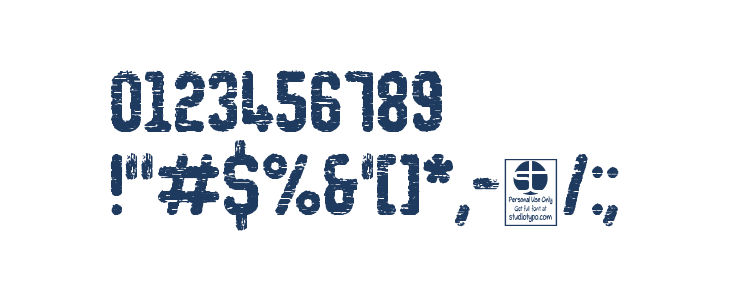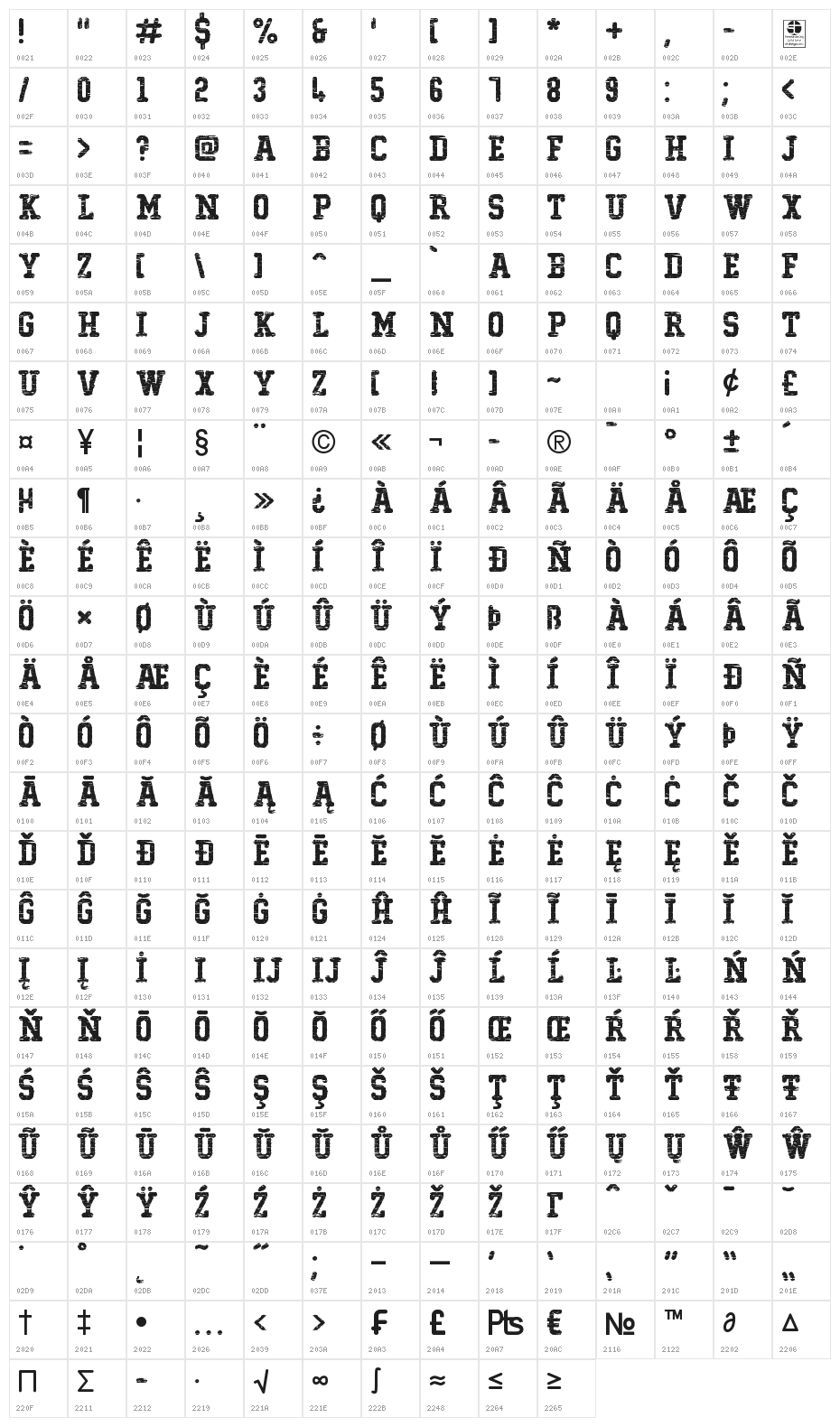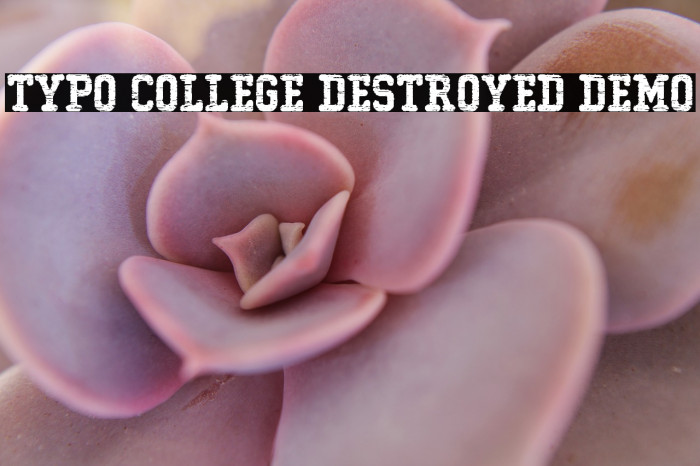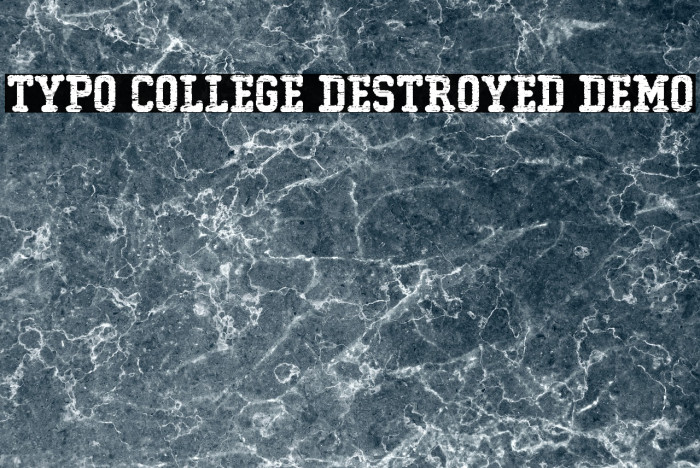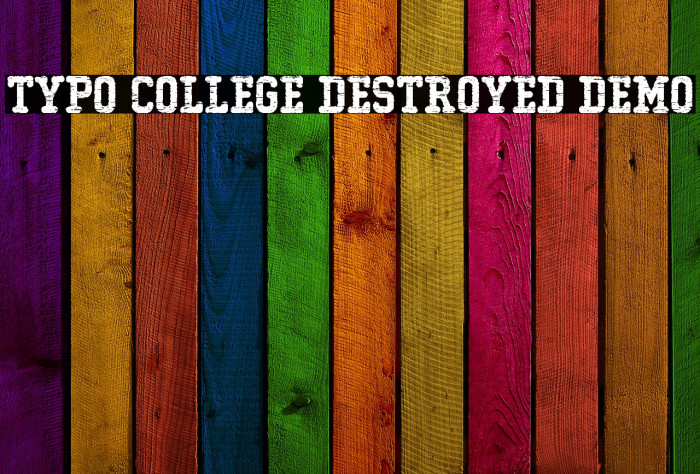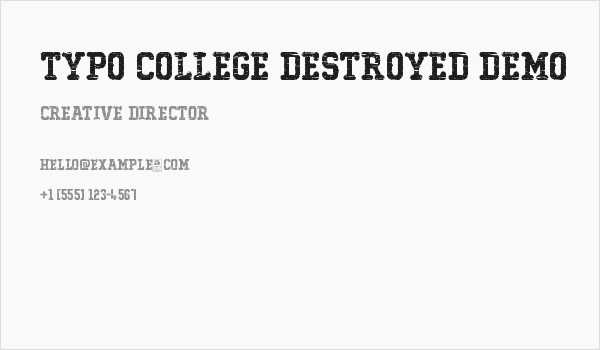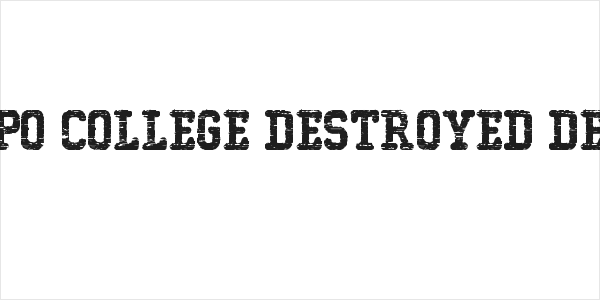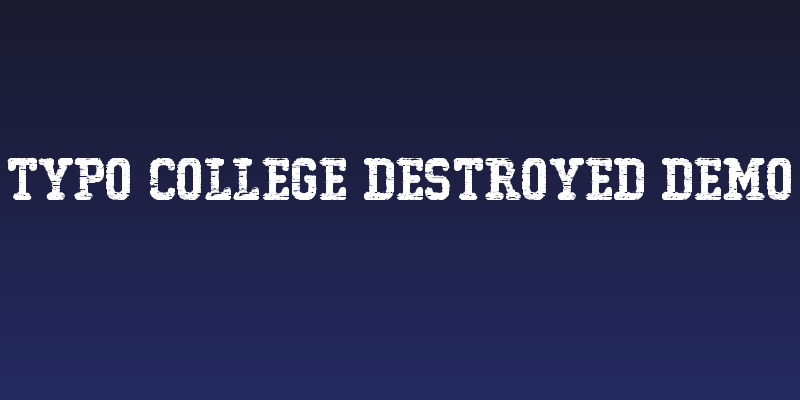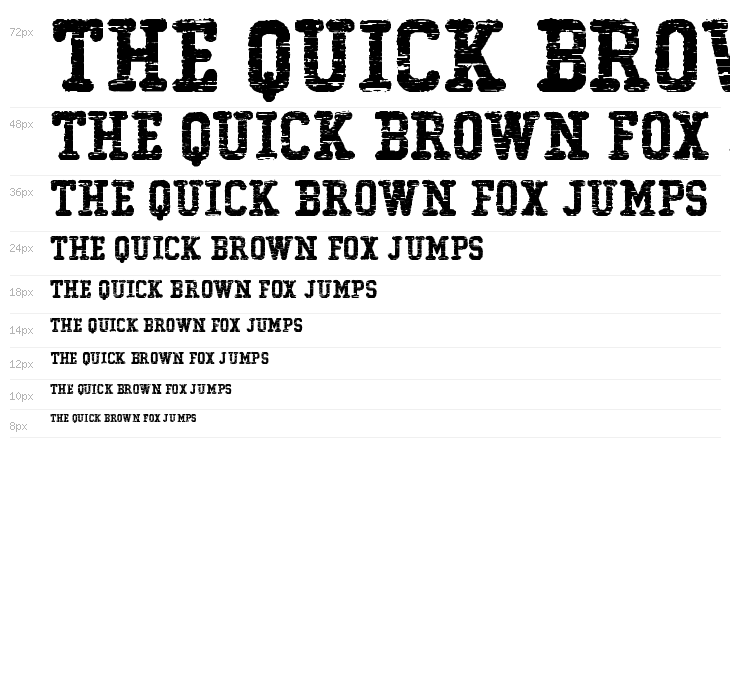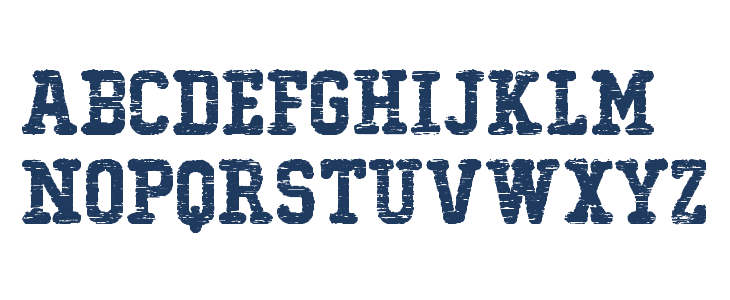
Typo College Destroyed Demo Font
Typo College Destroyed Demo Description
This font features a distressed, worn-out appearance, reminiscent of vintage collegiate styles. The characters are bold and blocky, with a rough texture that gives them a rugged, aged look. The uppercase letters are prominent and commanding, while the numbers and special characters maintain the same distressed aesthetic. This font's unique style makes it ideal for projects that require a retro or grunge feel, such as posters, album covers, or themed event invitations. The texture adds a layer of depth and interest, making it stand out in any design.
Proposed ProjectsIdeal for retro-themed posters, album covers, event invitations, and branding that requires a grunge or vintage aesthetic.